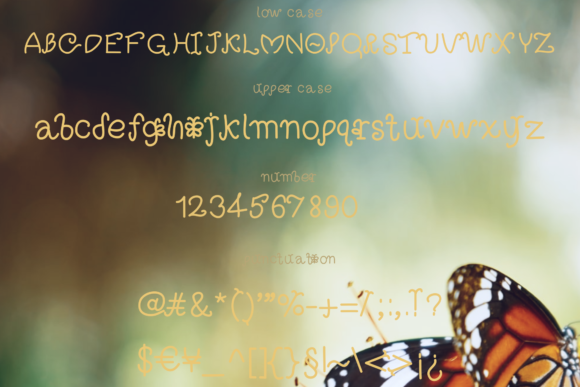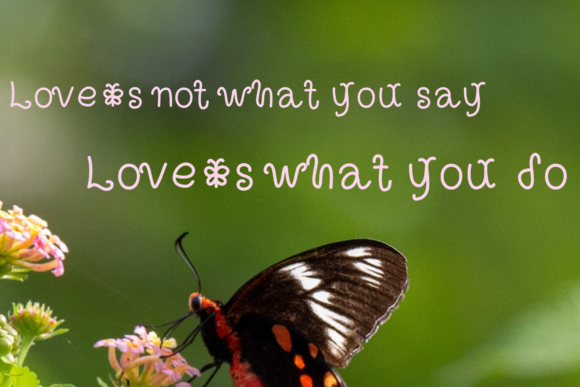
Introduction to I’m Butterfly Font
I’m Butterfly is a sweet and playful handwritten font.
This dazzling font will turn any creative idea into a standout .
Key Features of I’m Butterfly Font
Why Choose I’m Butterfly Font?